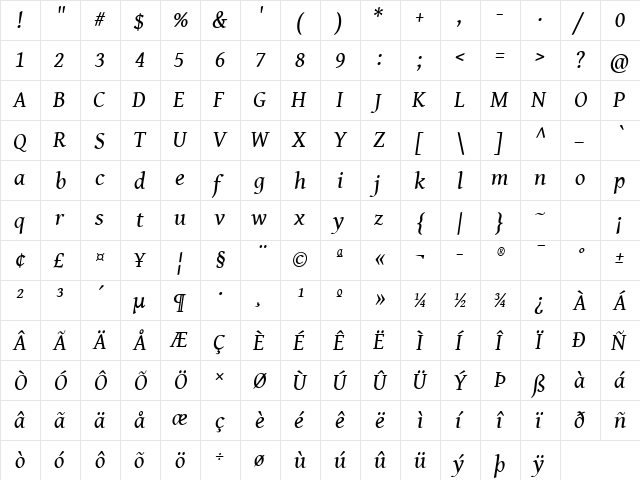
Gentium Book Basic Italic
Design Context for Gentium Book Basic Typeface
Gentium Book Basic is a composed and adaptable typeface that performs quietly and consistently across a wide range of design contexts. The slanted form adds forward momentum and visual energy.
Pro Tip: Try Gentium Book Basic for annotation and caption copy alongside an upright companion — the contrast in angle creates a dynamic but ordered typographic system.